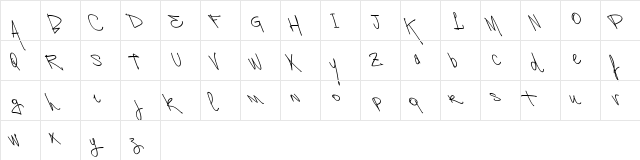
Vtks Autorized 2 Regular
| Foundry | douglas vitkauskas |
| Designer | douglas vitkauskas |
Design Context for Vtks Autorized 2 Typeface
Vtks Autorized 2 is a composed and adaptable typeface that performs quietly and consistently across a wide range of design contexts.